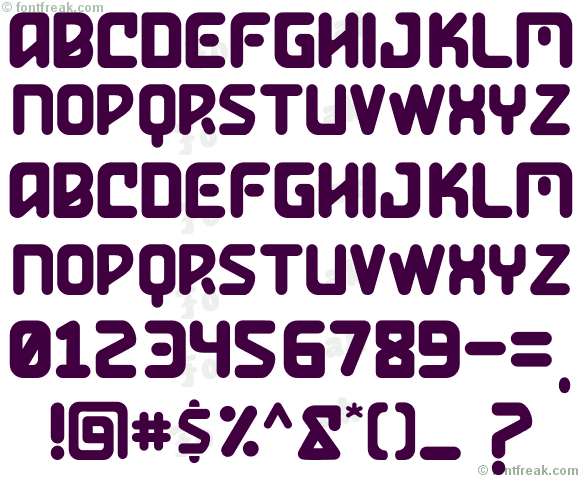
HYPERLOOP
About HYPERLOOP
The HYPERLOOP font by MaknaStudio is a striking display typeface that encapsulates modernity and boldness, making it an excellent choice for a variety of design projects. Released in 2021, this freeware font features a unique sans-serif style characterized by its geometric forms and strong visual impact. The strokes are consistently thick, creating a sense of uniformity, while the clean lines and rounded corners enhance its contemporary appeal. The spacing between characters is well-balanced, allowing for clear readability, even at larger sizes.
HYPERLOOP is particularly versatile, making it suitable for a range of applications. It shines in contexts such as eye-catching movie posters, where its boldness can draw attention and create excitement. Additionally, it is perfect for branding and logo design, providing a modern edge that resonates with tech-savvy audiences. The font also works well for social media graphics, where clarity and impact are essential for engaging viewers. Furthermore, it can be utilized in promotional materials for events or products aimed at younger demographics, thanks to its energetic vibe.
The target audience for the HYPERLOOP font includes graphic designers, small business owners, and content creators who seek a distinctive typeface to enhance their projects. Its free availability allows budding designers to experiment without financial constraints.
What sets the HYPERLOOP font apart is its ability to merge bold aesthetics with functionality. Its unique design not only captures attention but also conveys a sense of innovation and creativity. For those looking to elevate their visual projects, the HYPERLOOP font free download offers an exciting opportunity to incorporate a standout typeface into their work. Embrace the future of typography with HYPERLOOP and bring your designs to life.